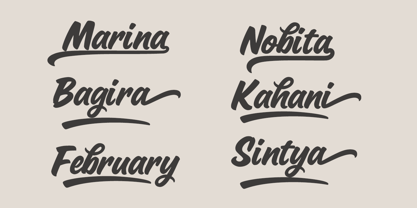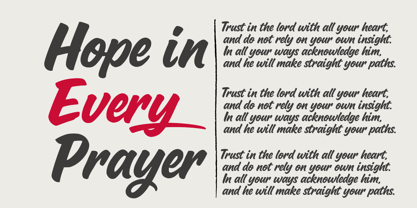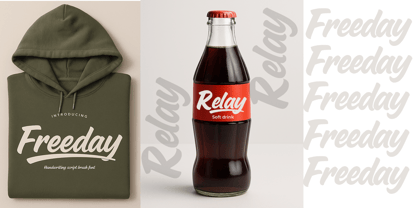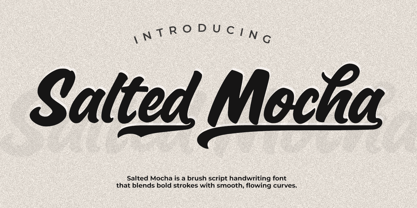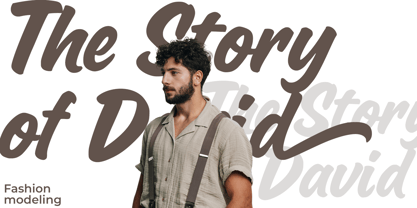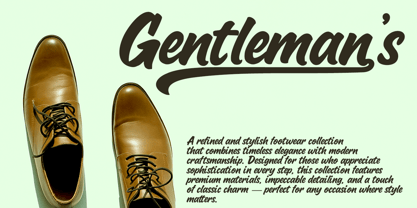
Salted mocha
by Cocodesign
The Salted mocha Font Family was designed by Muhammad Zaini and published by Cocodesign. Salted mocha contains 1 styles. More about this family
Salted Mocha is a captivating brush script font that beautifully harmonizes bold strokes with graceful, flowing curves. This dynamic typeface exudes a contemporary yet organic vibe, making it an excellent choice for branding, logos, packaging, advertising posters, and a variety of creative design endeavors. Its sweeping lines and vibrant shapes provide a sophisticated yet impactful aesthetic, ideal for typography that seeks to make a memorable impression. Designed with versatility in mind, Salted Mocha effortlessly complements both print and digital applications, enhancing any visual narrative with its unique charm and character.
Designers: Muhammad Zaini
Foundry: Cocodesign